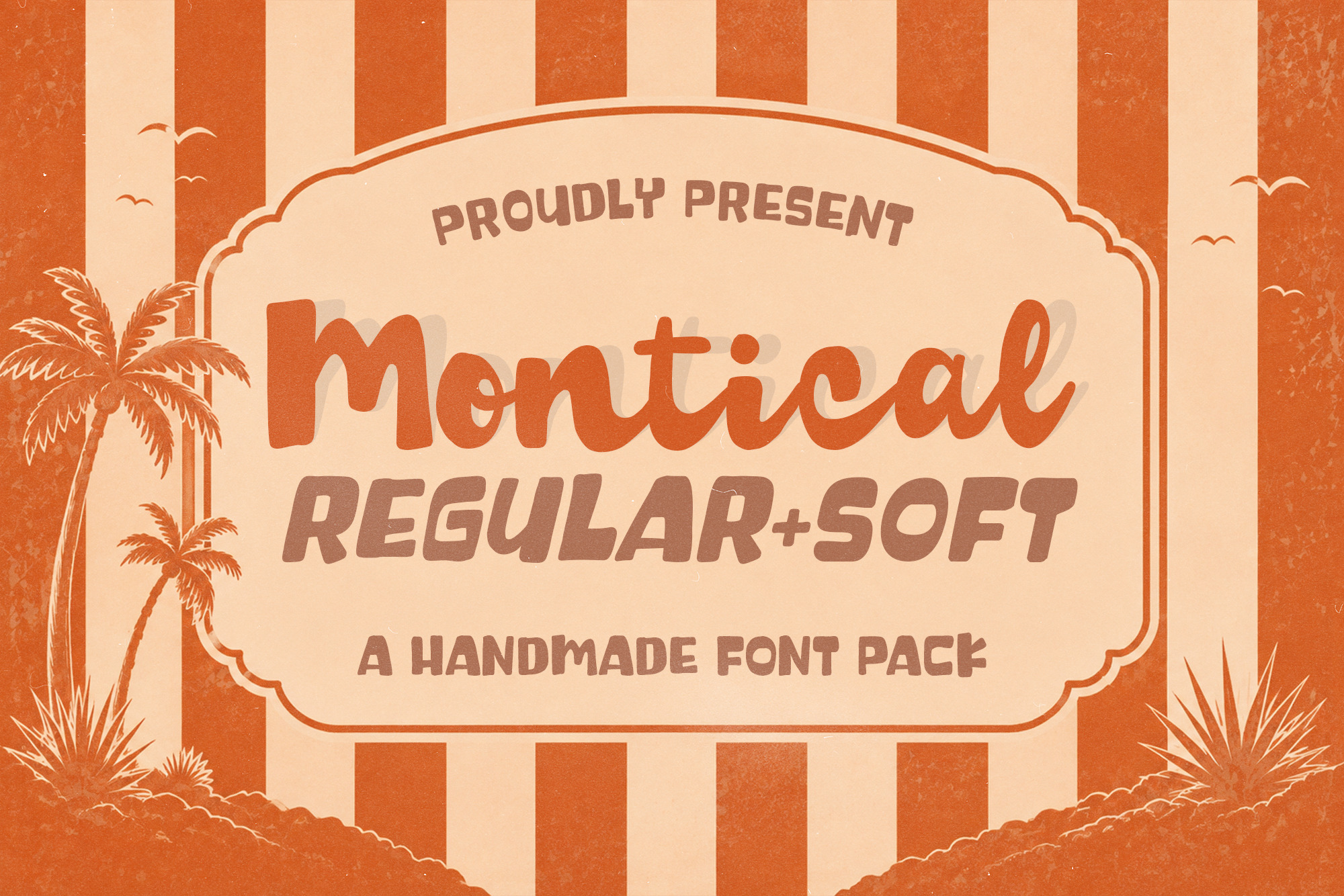
Montical Handmade Font
Montical is a playful handmade display font duo that blends bold retro charm with a soft, friendly personality. Inspired by vintage beach signs, classic surf culture, and nostalgic summer vibes, Montical combines a smooth script style with a chunky rounded sans to create eye-catching typography full of warmth and character.
Designed for logos, branding, packaging, posters, apparel, social media, and creative projects, Montical delivers a fun and approachable look while maintaining excellent readability. Its handcrafted details, flowing curves, and retro aesthetic make it perfect for designs that need a cheerful, authentic, and memorable touch.
Whether you're creating a tropical brand, a vintage-inspired poster, or a playful product identity, Montical brings a timeless handcrafted feel that instantly stands out.
Montical Script
Montical Soft